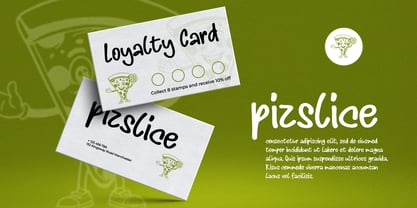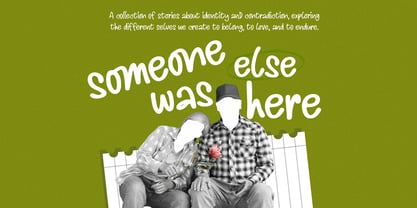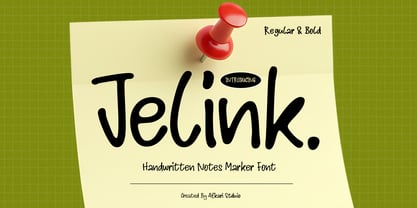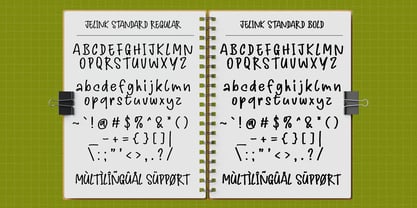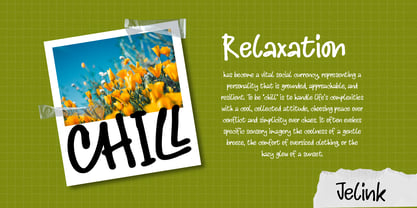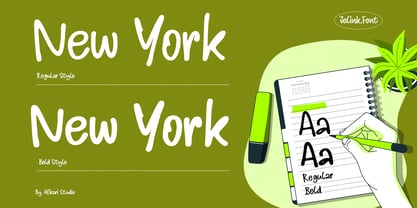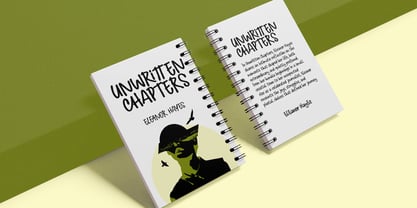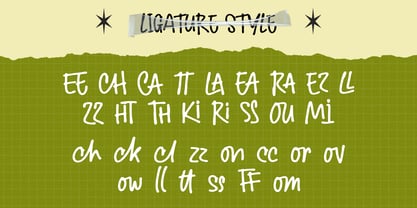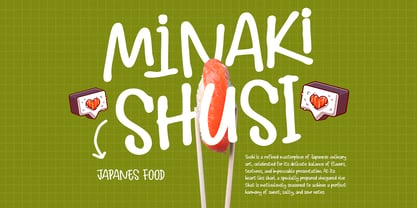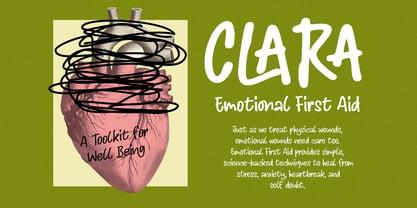
Jelink
von Afkari Studio
Die Schriftfamilie Jelink wurde von Musthafa Kamal Emje entworfen und von Afkari Studio veröffentlicht. Jelink enthält 2 Stile und Familienpaketoptionen. Mehr über diese Familie
Jelink is a natural handwritten marker note font that captures the authentic feel of real pen strokes on paper. Designed with a casual and expressive style, this font brings warmth, personality, and a human touch to your creative projects. Inspired by everyday handwriting and quick marker notes, Jelink features smooth curves, slightly rough edges, and organic flow—making it perfect for designs that need to feel personal, friendly, and approachable. Whether you're creating social media content, branding, or printable designs, Jelink adds a relaxed and creative vibe. This handwritten font works beautifully for quotes, notes, planners, packaging, posters, invitations, and digital content. Its legibility combined with a natural handwritten look makes it both stylish and functional across various design needs. Highlighted Features: - Compete set of uppercase and lowercase letters, numerals, and punctuation - Natural handwritten marker style with authentic stroke texture - Smooth and readable letterforms - Compatible with both PC and Mac, Easy installation process - Works seamlessly with Adobe Illustrator, Adobe Photoshop, Adobe InDesign, and Microsoft Word No additional software required - Multilingual support includes characters like ä, ö, ü, Ä, Ö, Ü, ß, ¿, and ¡ Add a personal and expressive touch to your designs with Jelink — the perfect handwritten marker font for creative storytelling.
Designer: Musthafa Kamal Emje
Foundry: Afkari Studio